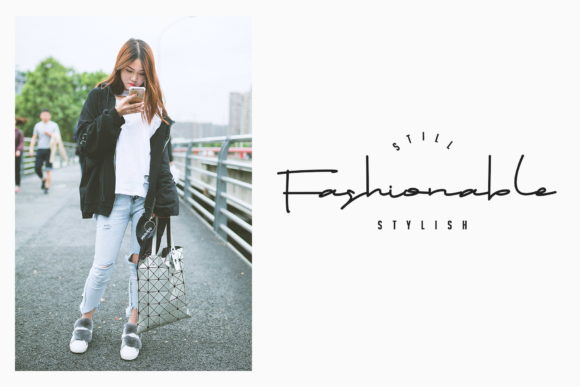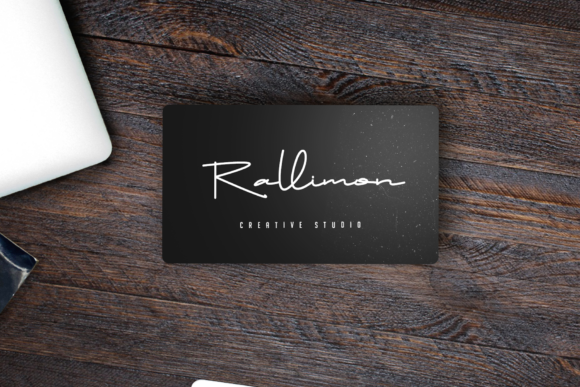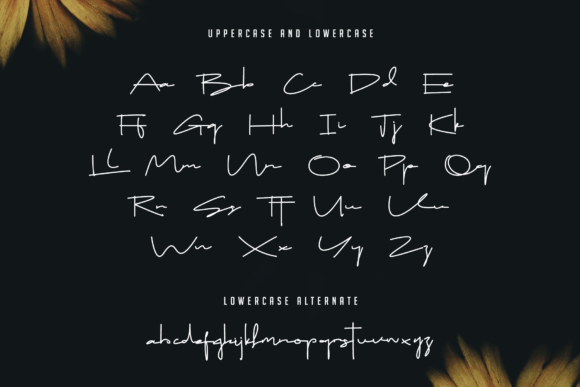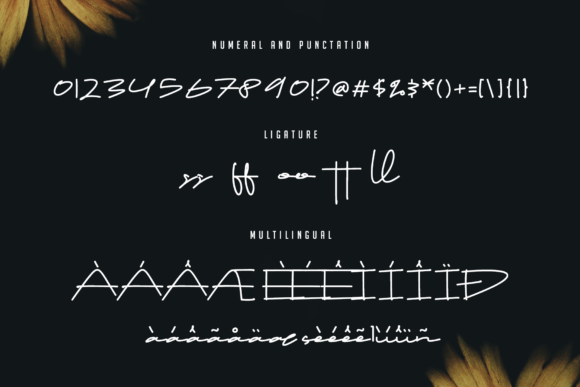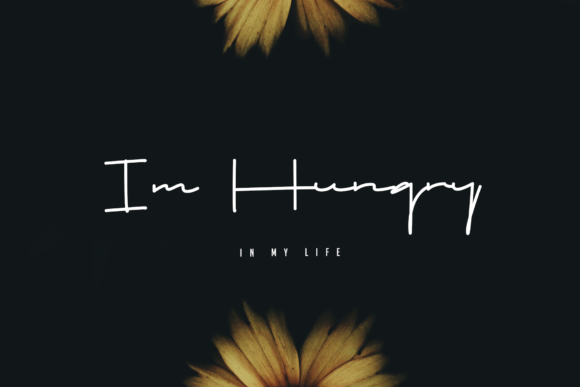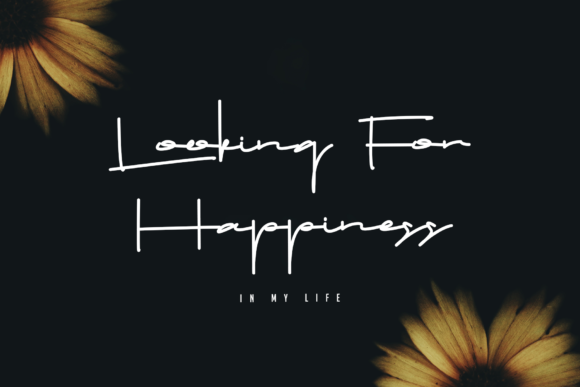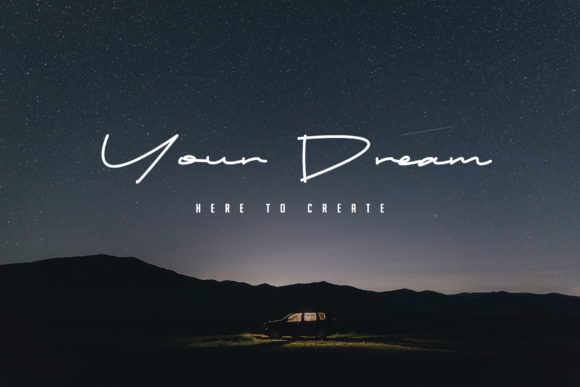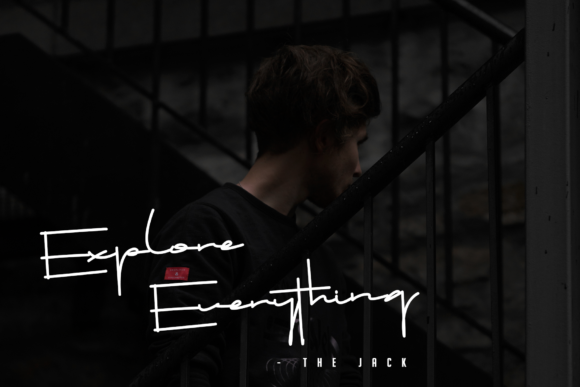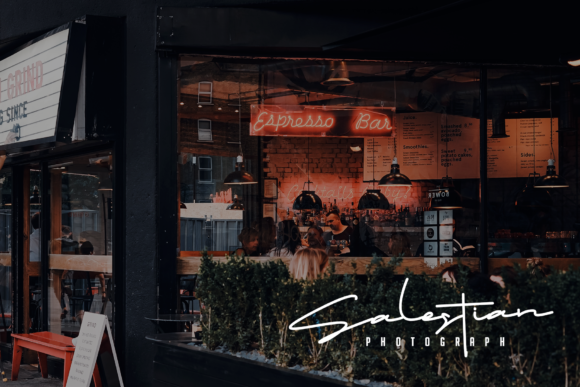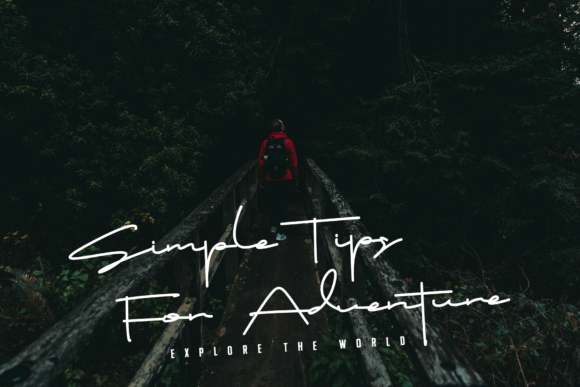
Drop Stay Font
About Drop Stay Font
The Drop Stay is an elegant handwritten font. It has a natural writing style which will add a personal touch to your designs.